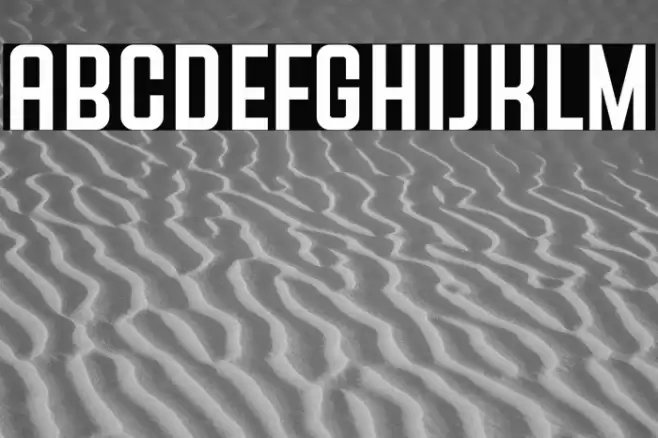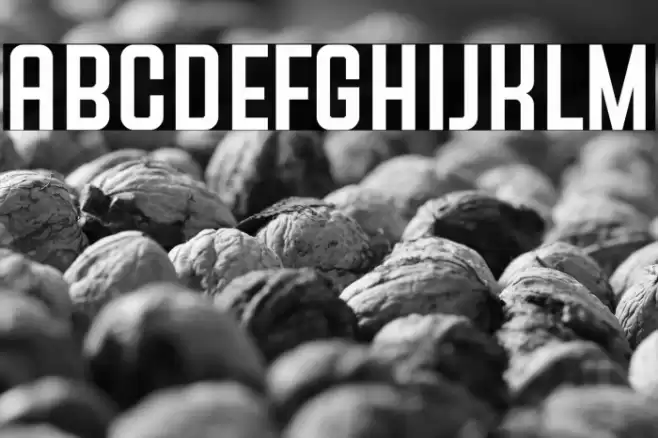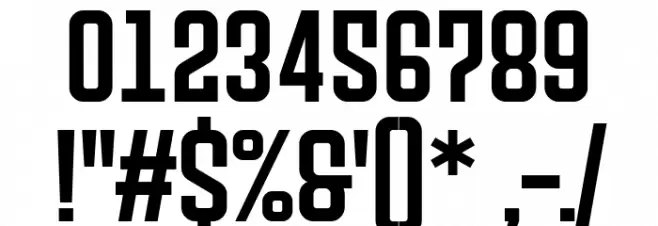
SANSON Font
SANSON Description
This font features bold, geometric letterforms with a strong presence. The characters are uniformly structured, offering a modern and robust appearance. The uppercase letters are particularly striking, with consistent stroke widths that convey a sense of stability and confidence. The numerals and special characters maintain this bold aesthetic, ensuring readability and impact. The overall design is clean and straightforward, making it suitable for a variety of applications where clarity and emphasis are desired.
A bold, geometric font with a modern and robust appearance from Uncategorized fonts.
- Proposed Projects: Ideal for branding, headlines, posters, and signage where a strong, impactful presence is needed.